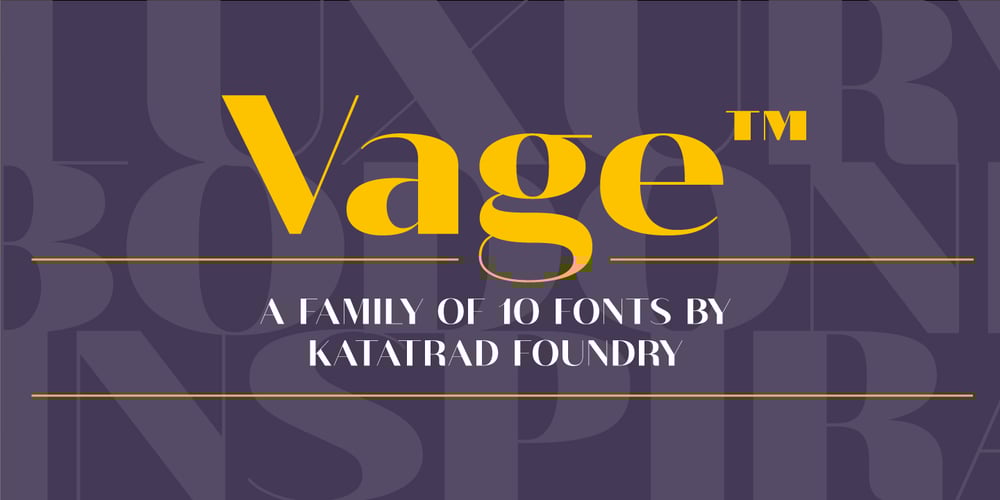
Vage Font Family was designed by Thanarat Vachiruckul and published by Katatrad. Vage contains 10 styles and family package options. Vage™ is a family of 10 fonts, a contemporary sans-serif typeface. It is rooted in the style of a classic high contrast typeface provides advanced typographical support with features such as ligatures and alternate characters. Especially suited for fashion magazines, logotypes and luxury contexts.